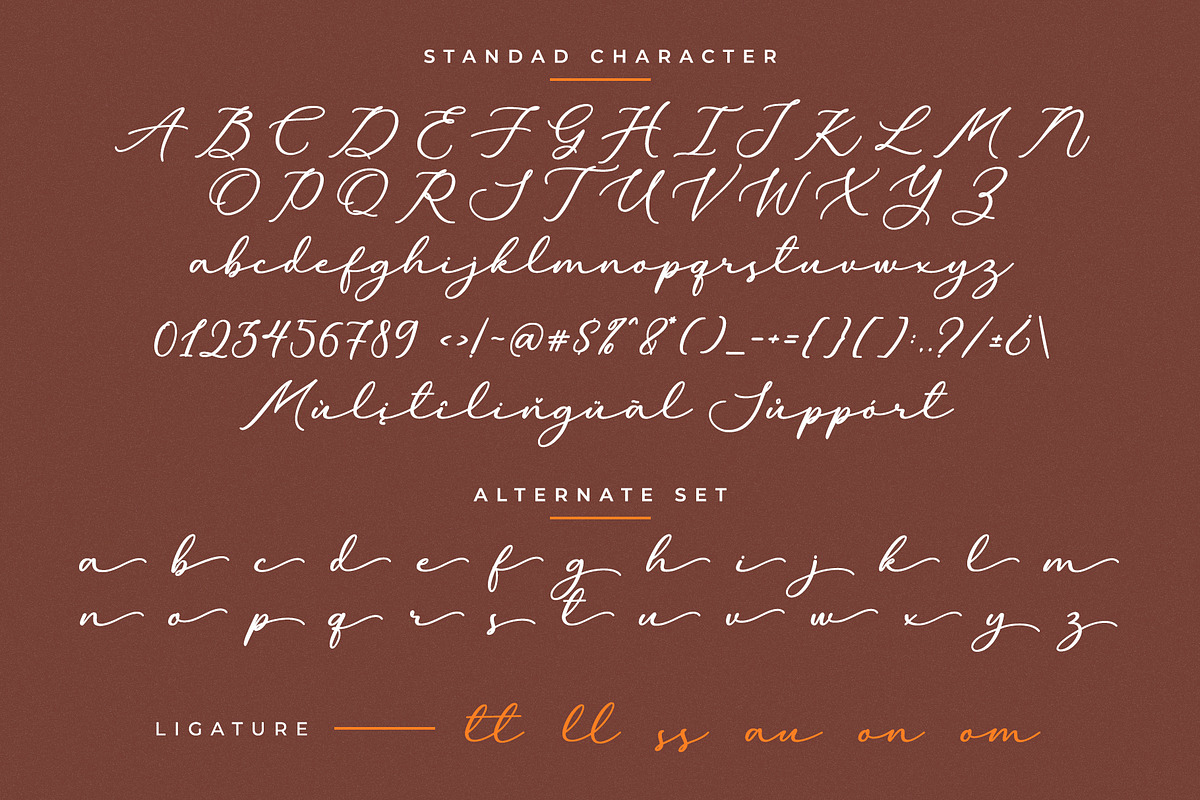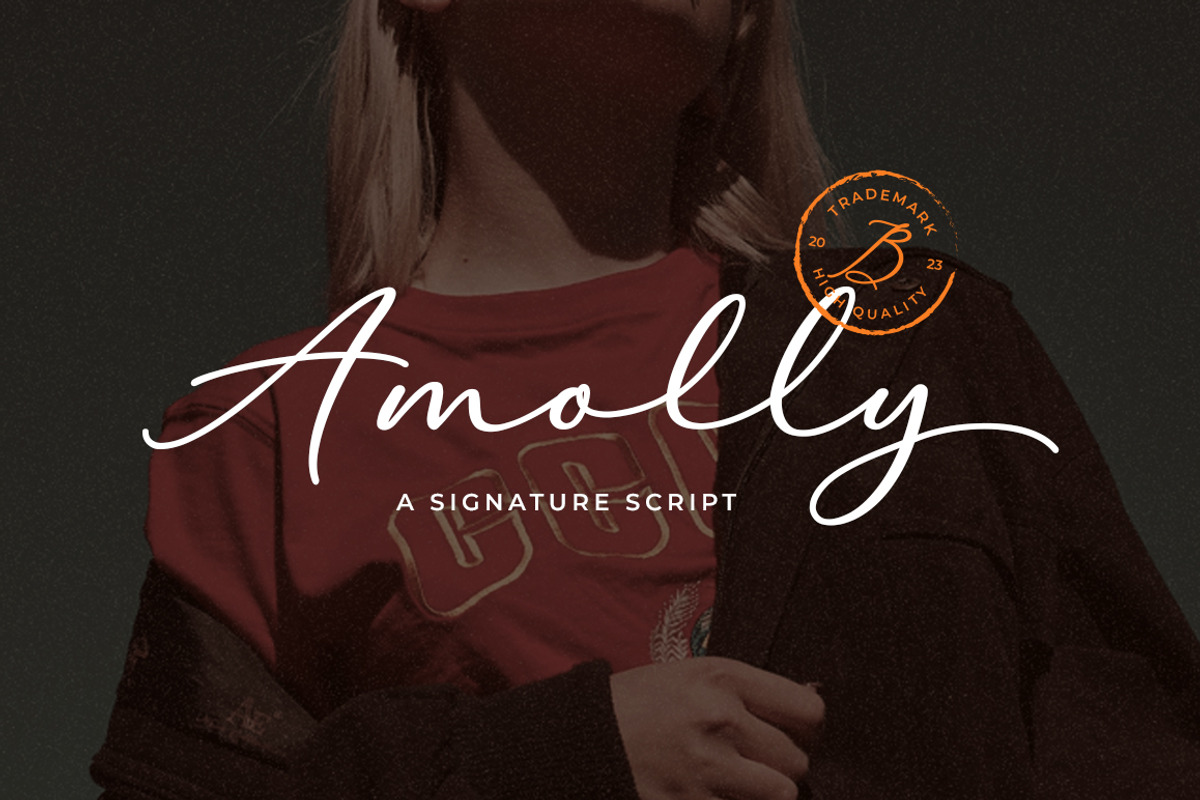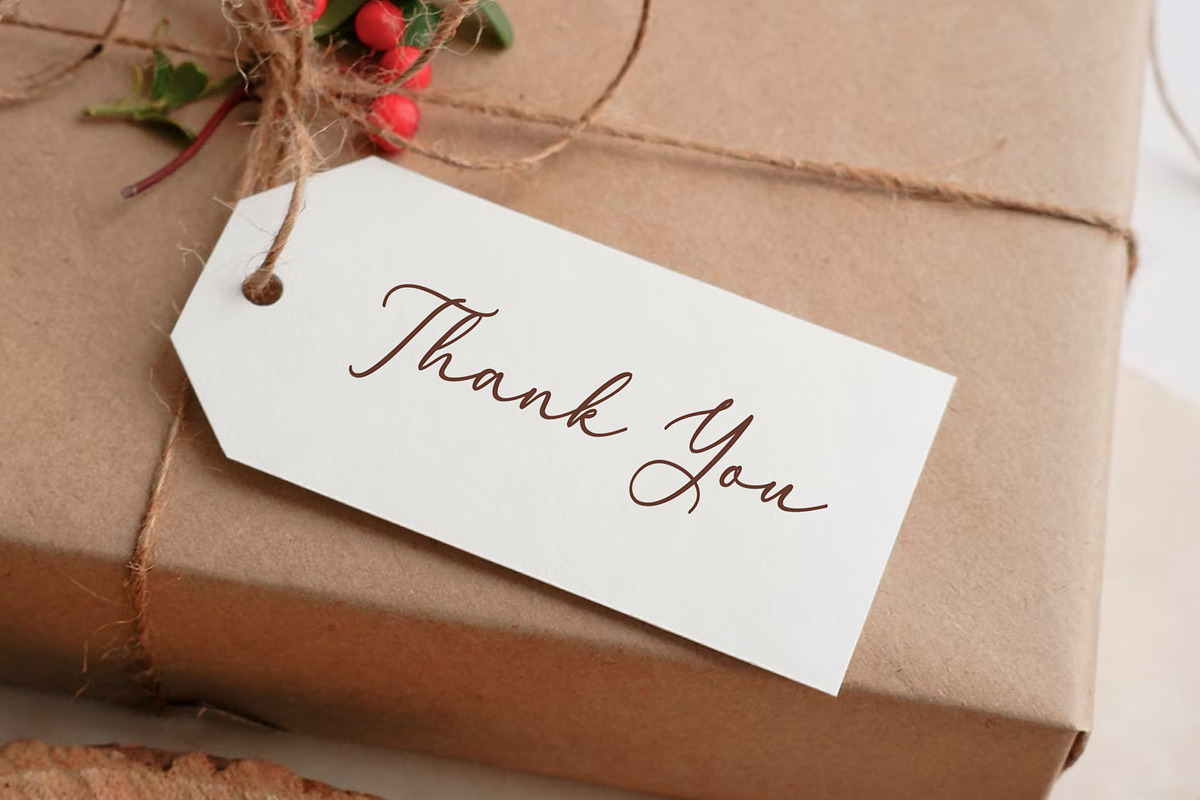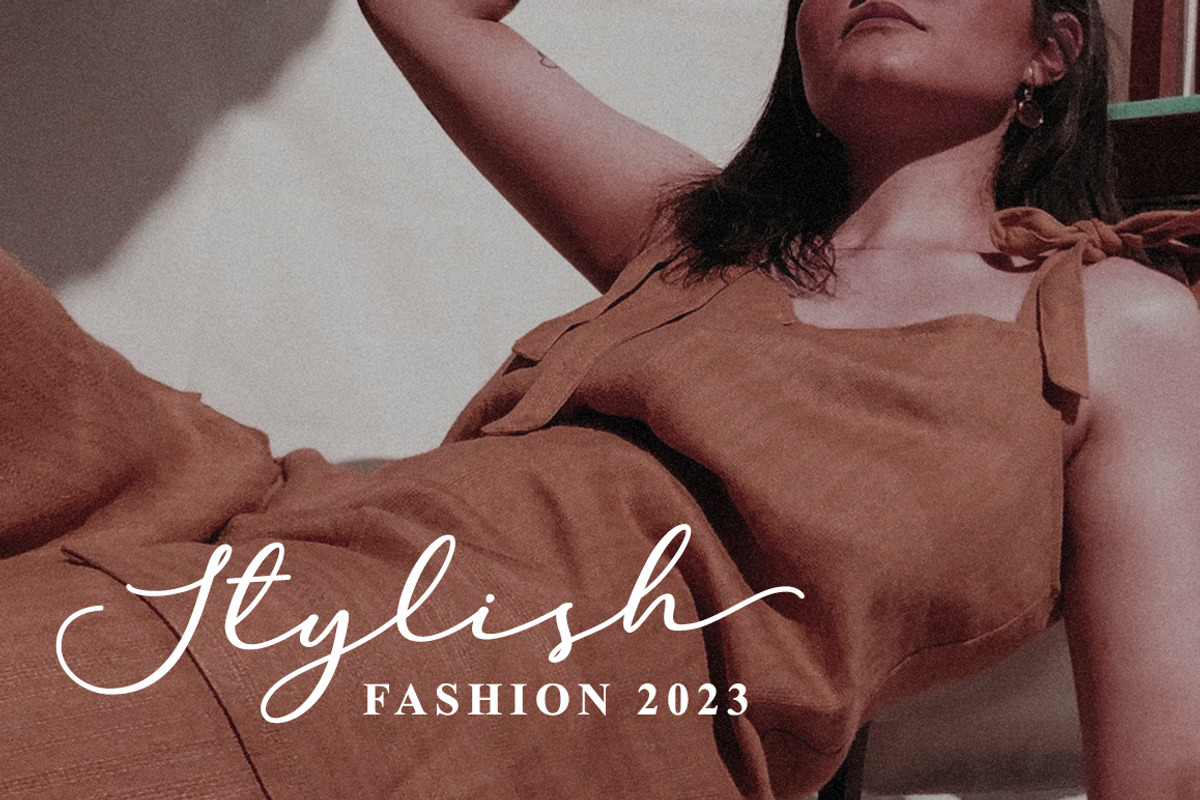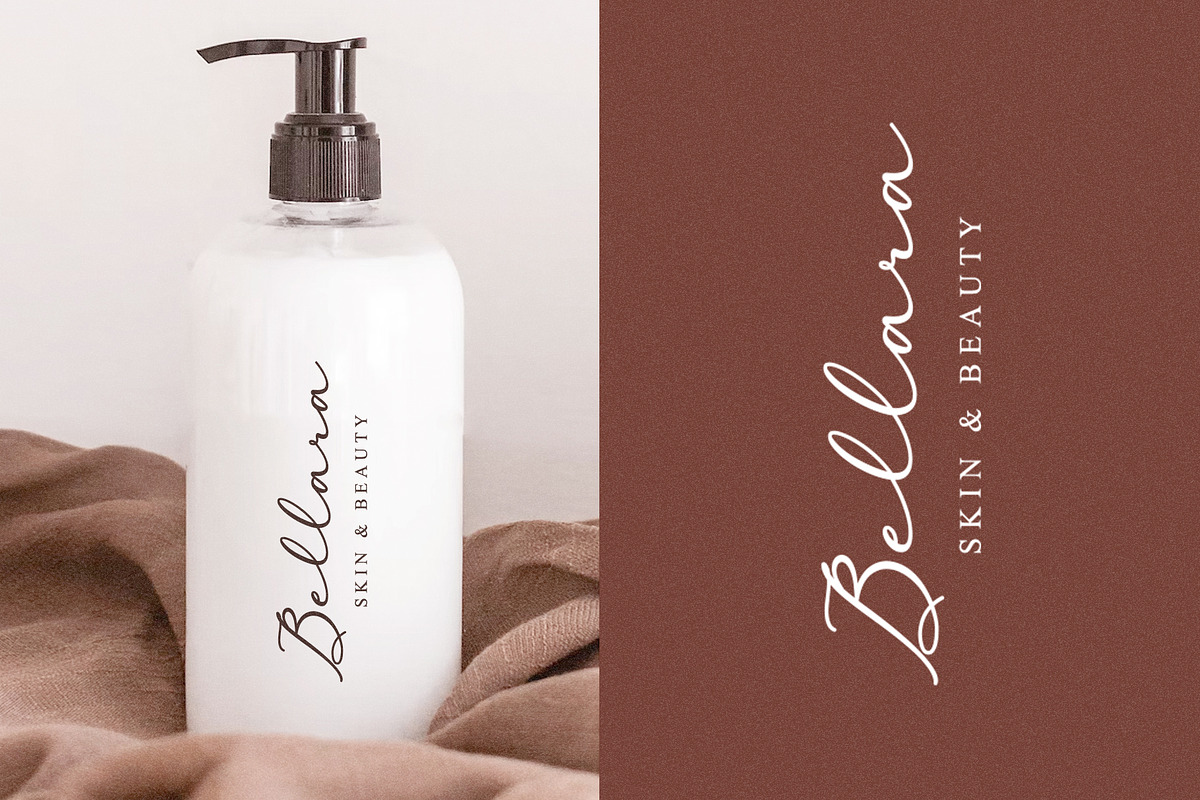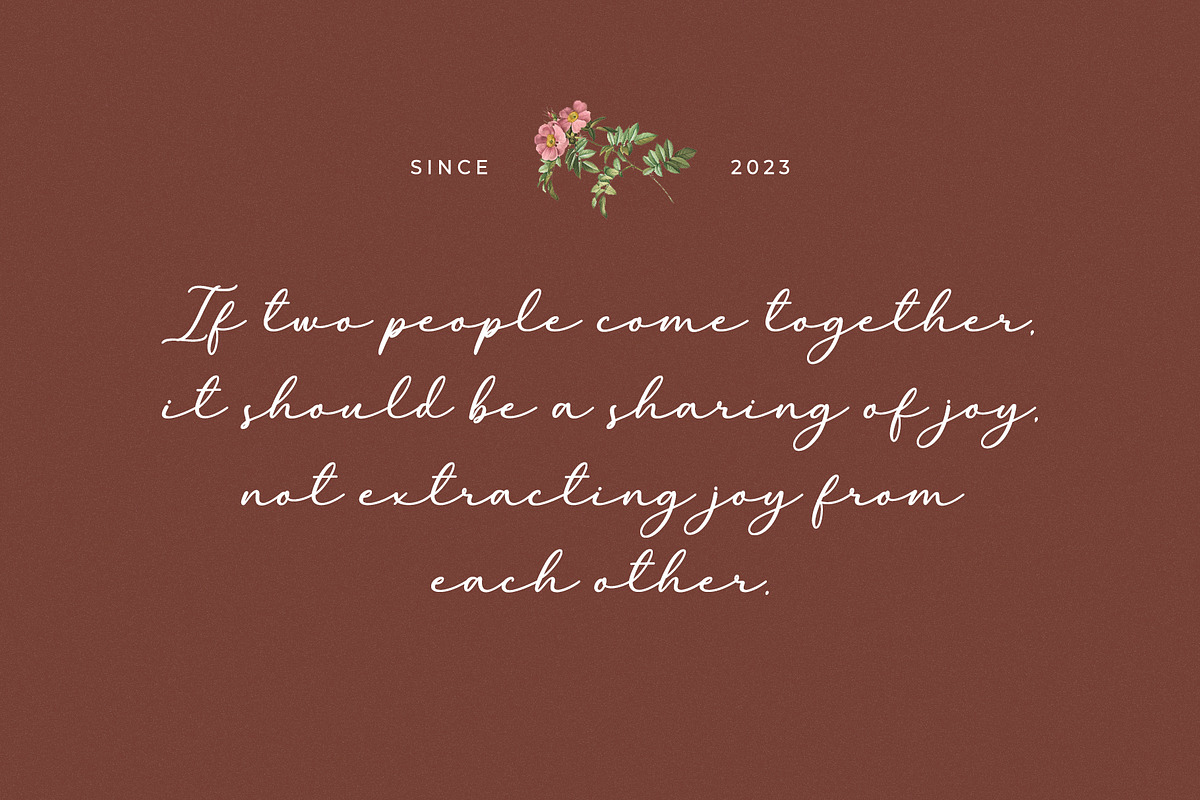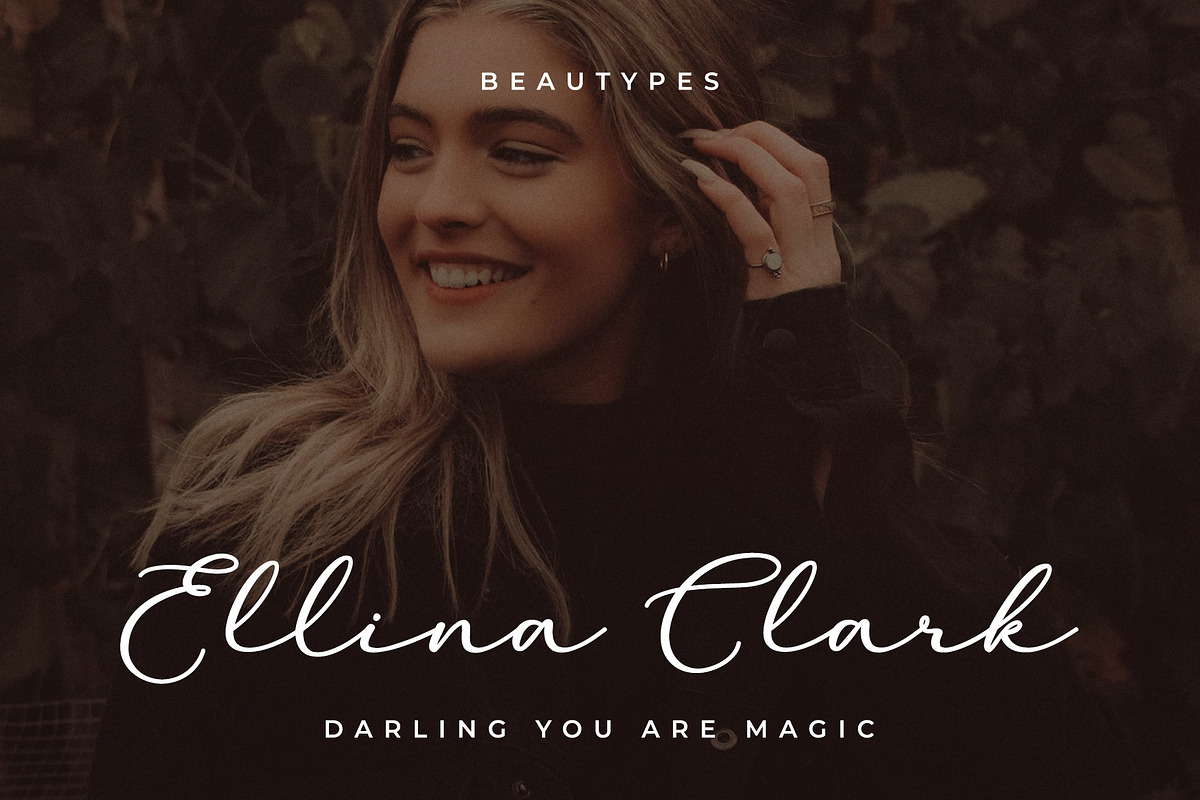
Amolley - a signature script
Amolley is a handwritten font that is suitable for branding, signature, wedding invitation, promotion, product packaging, and other needs.